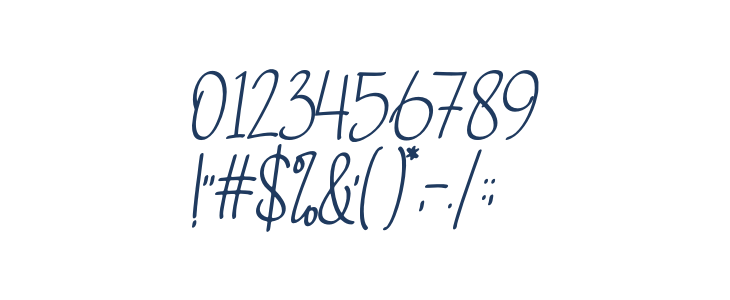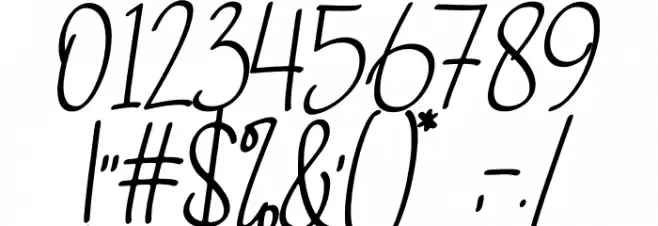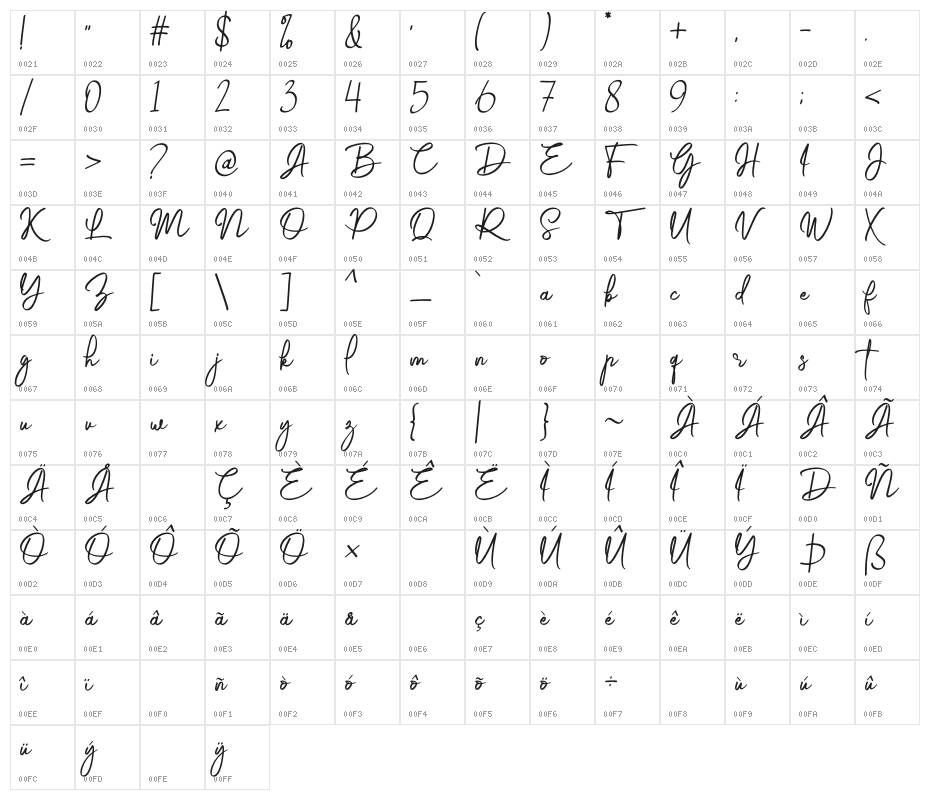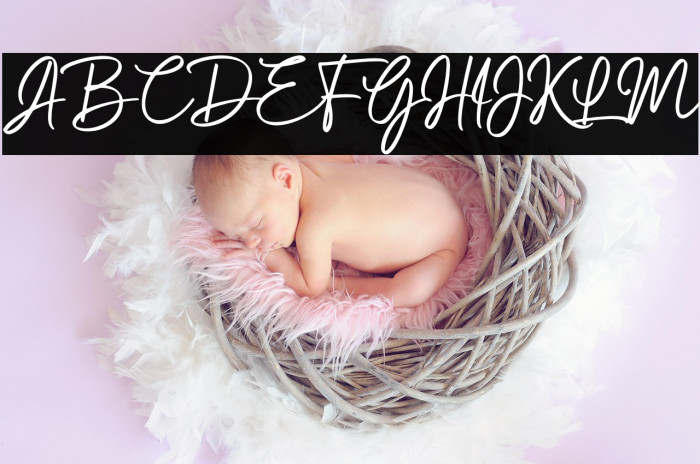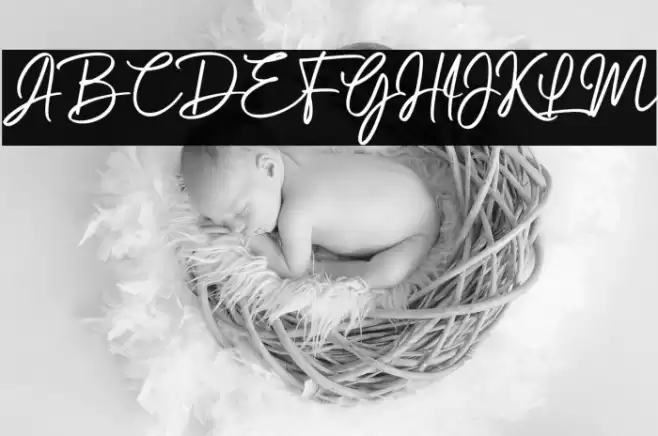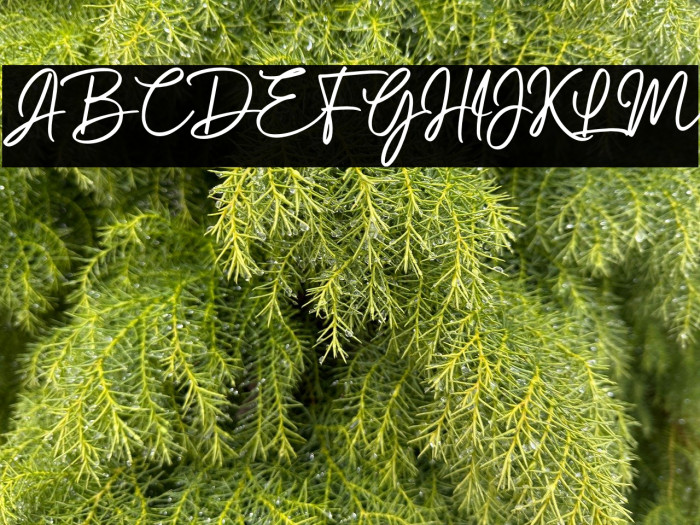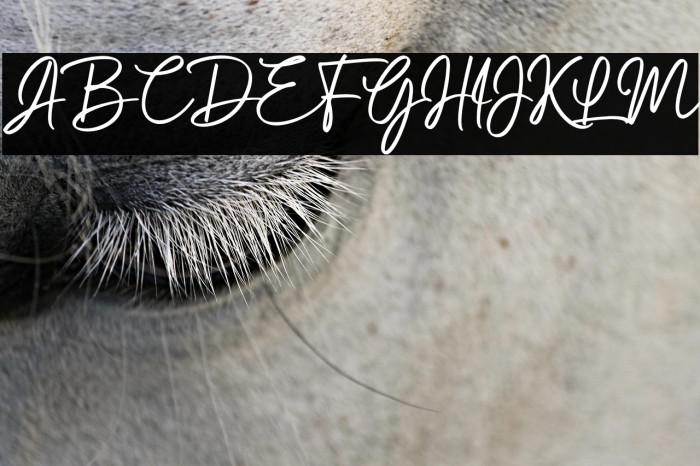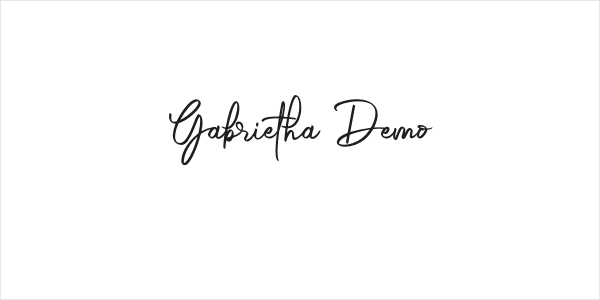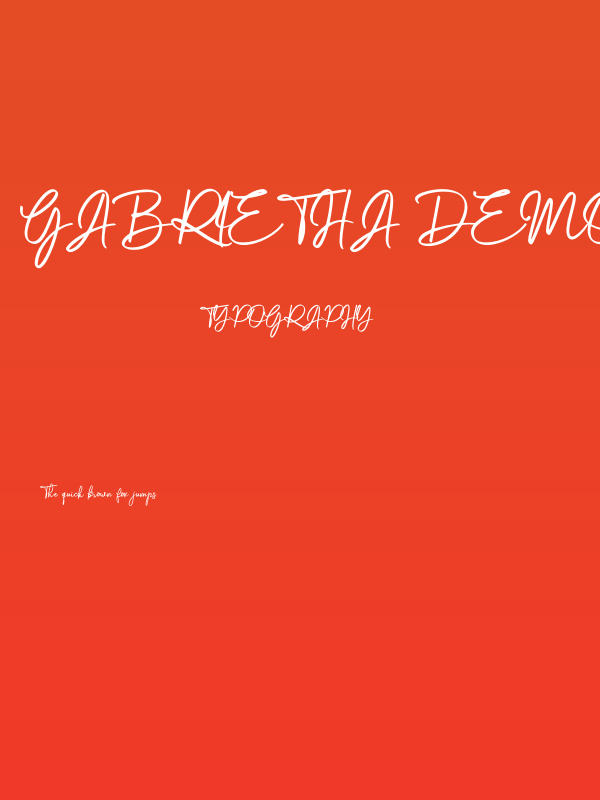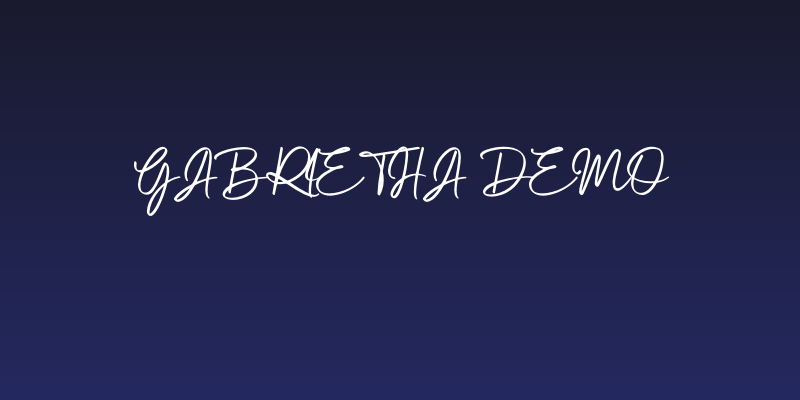
Gabrietha Demo Font
Gabrietha Demo Description
This font features an elegant, flowing script style that mimics natural handwriting. The letters are connected with smooth, fluid strokes, giving it a personal and artistic flair. The uppercase letters are slightly larger and more elaborate, while the lowercase letters maintain a consistent, graceful appearance. Numbers and special characters are designed to match the overall aesthetic, with a playful yet sophisticated look. The font's overall appearance is both stylish and versatile, making it suitable for a variety of design projects.